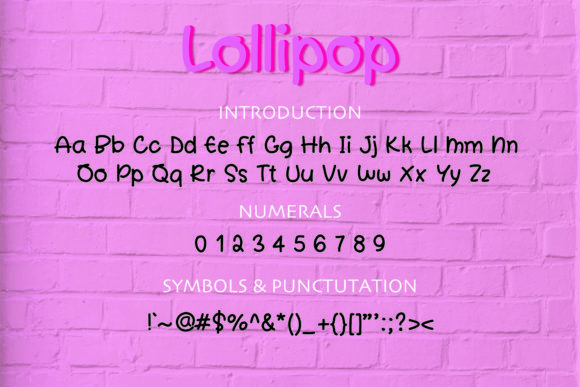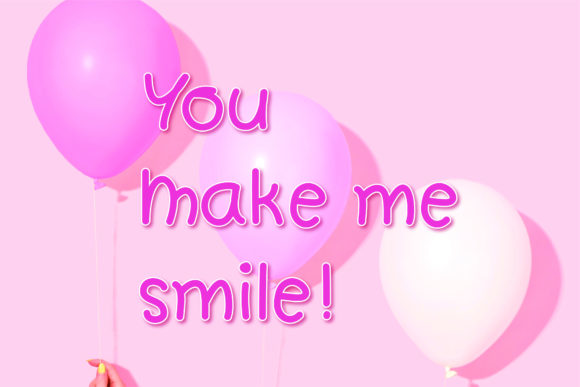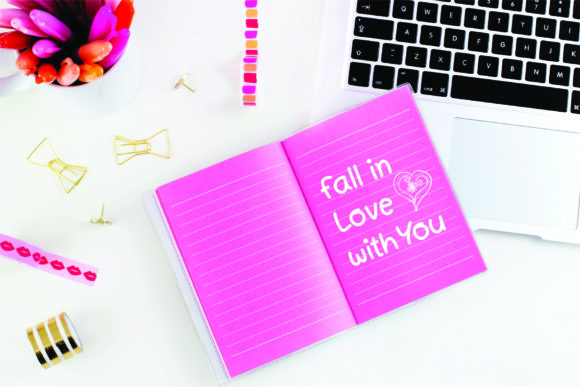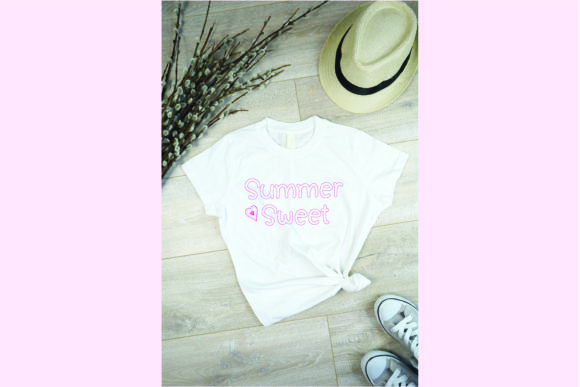
Introduction to Lollipop Font
Lollipop is a cute and cheery handwritten font.
Suitable to a wide variety of designs due to its neat and simple style, this font has the potential to become your favorite go-to font, no matter the occasion .
Key Features of Lollipop Font